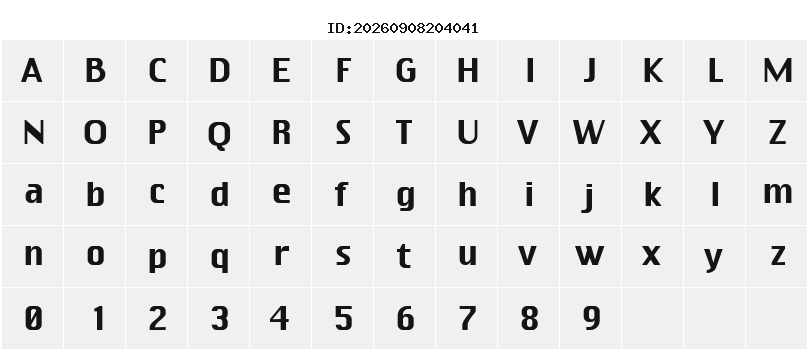
• Font Name: Virtue
• Full Font Name: Virtue
• Copyright: ©1997 Martin P. Pfeiffer. Based on Apple Computer's "Chicago" and "Charcoal" fonts. For Macintosh use only!
About Virtue.ttf
Virtue.ttf is a modern, elegant sans-serif font designed for ultimate readability and visual harmony. Perfect for branding, headlines, web design, and print materials.